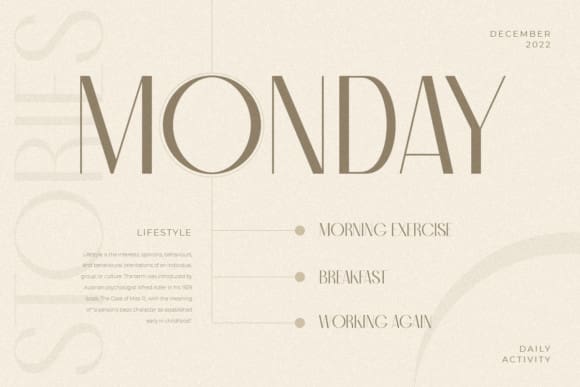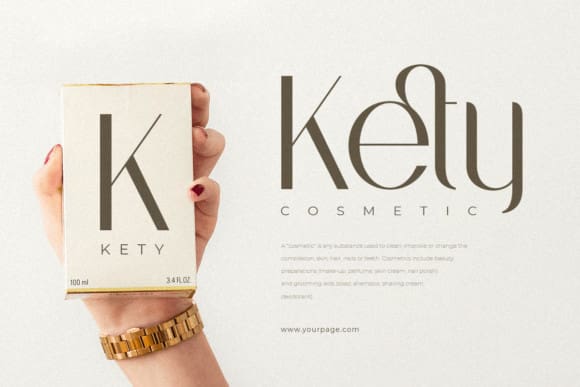
Bridge Font
Bridge Font is a stylish sans-serif font that epitomizes modern elegance and clarity. With its clean lines and balanced proportions, it’s perfect for professional branding, sleek editorial layouts, and contemporary web design. Elevate your projects with the refined simplicity of Bridge, where sophistication meets functionality.